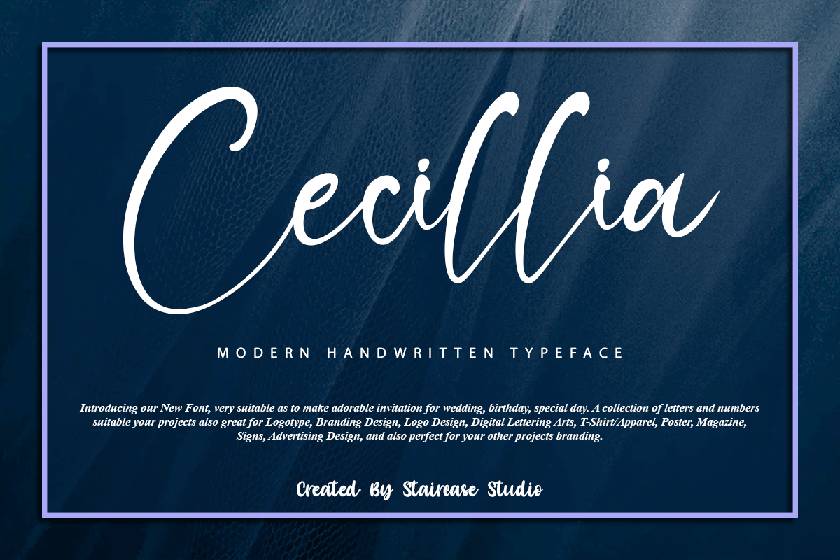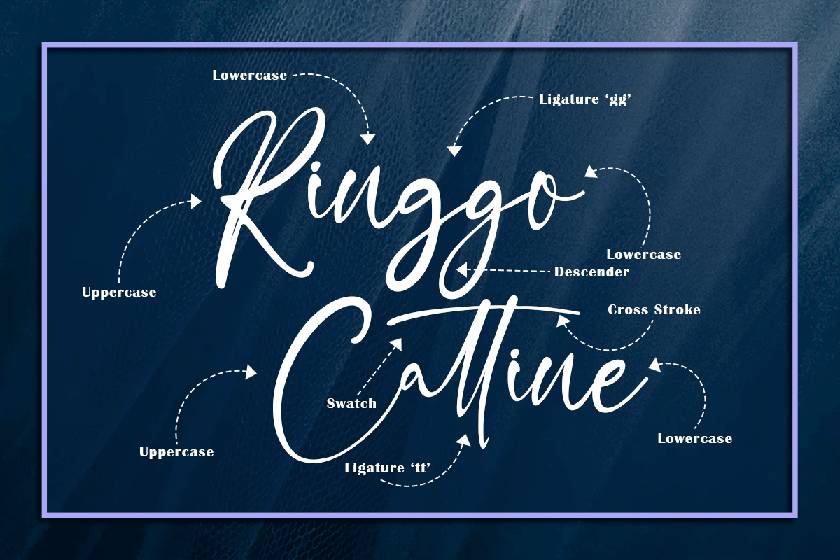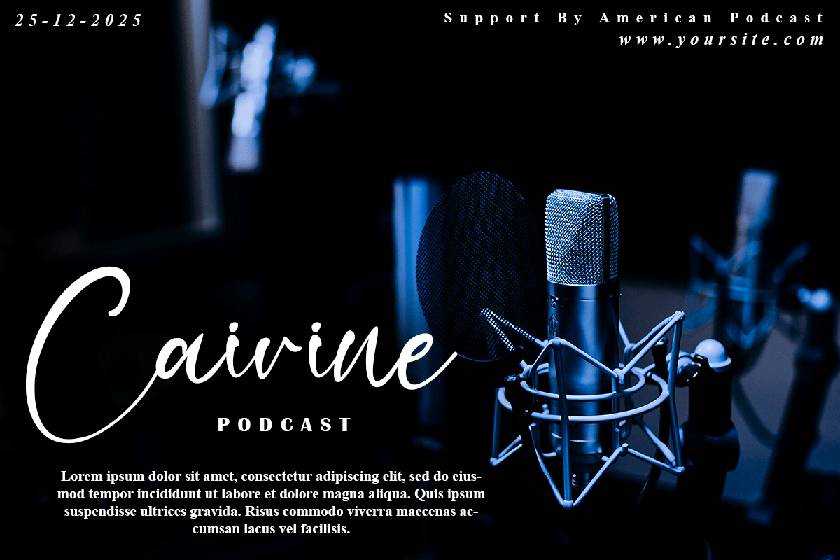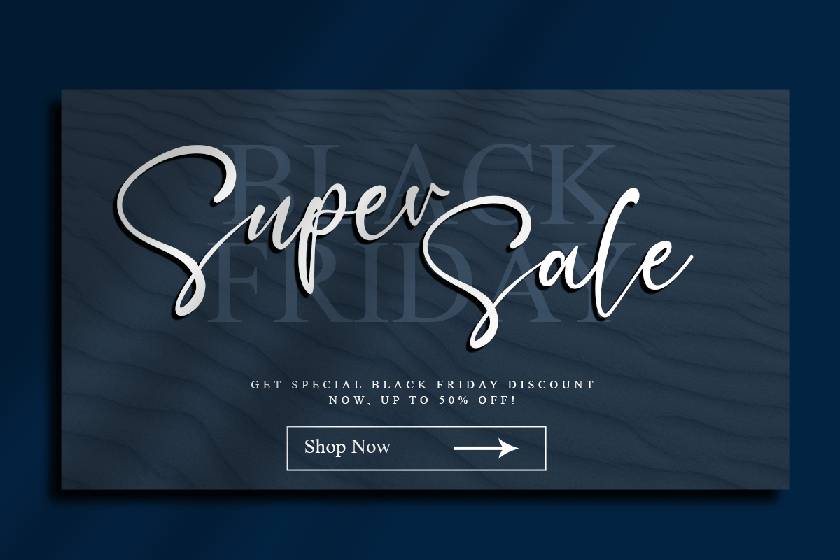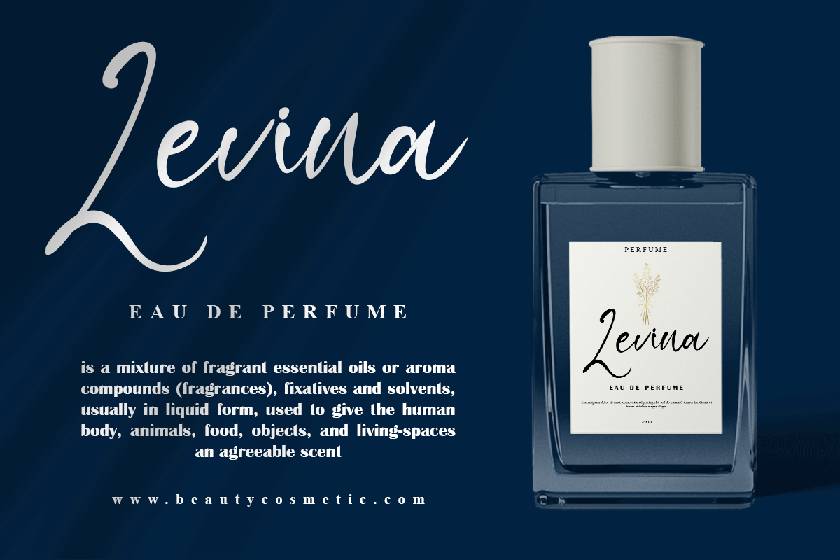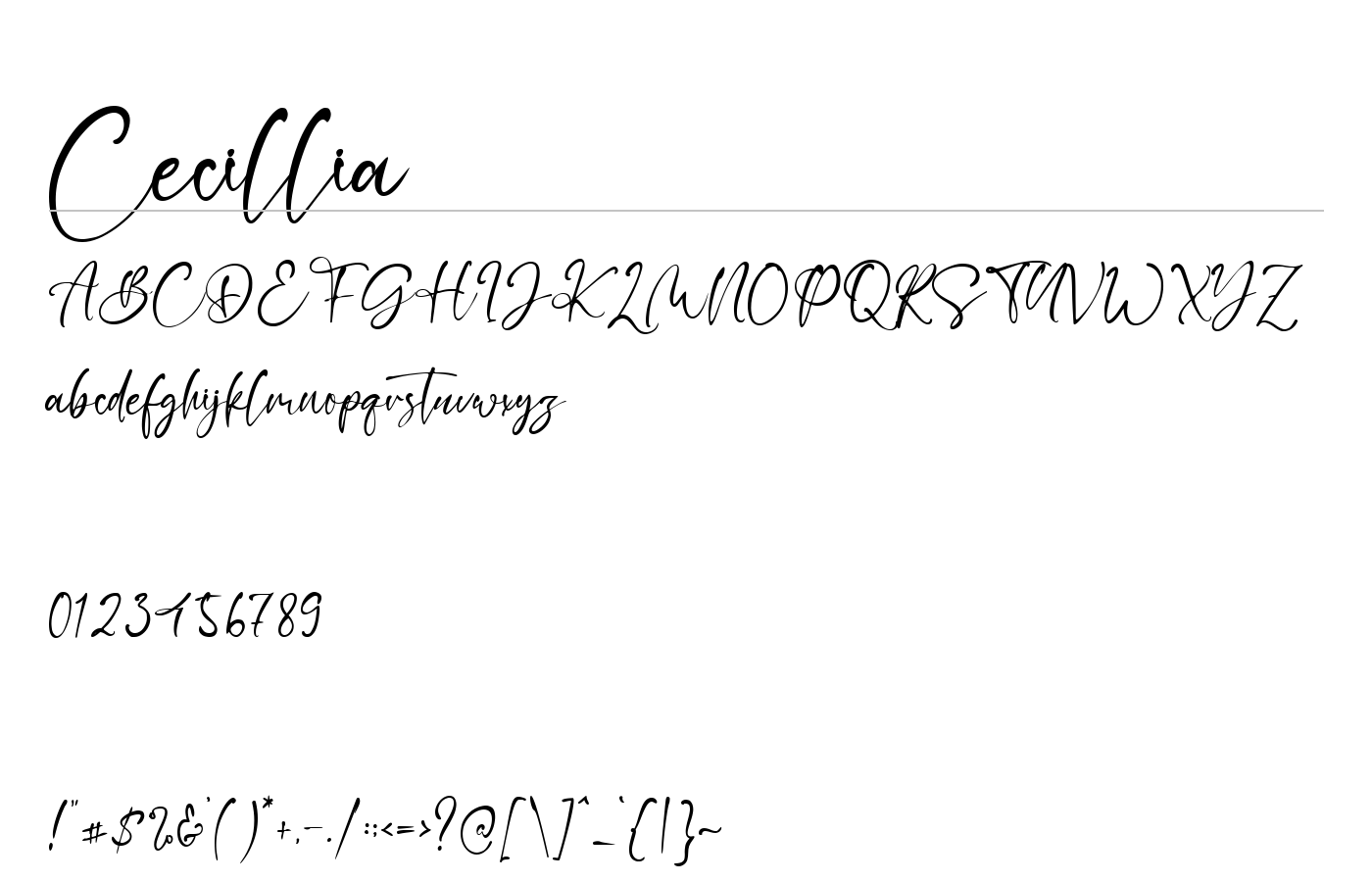
Cecillia is an elegant and flowing script font that features delicate, hand-drawn strokes with a lively, personal touch. Its slender, slightly irregular letterforms create a graceful, artistic feel that works beautifully for invitations, branding, and any design aiming for warmth and sophistication. This font shines in headlines and decorative uses where a stylish, handwritten look is desired.
| Font family | Cecillia Font |
| Designer | Staircase Studio |